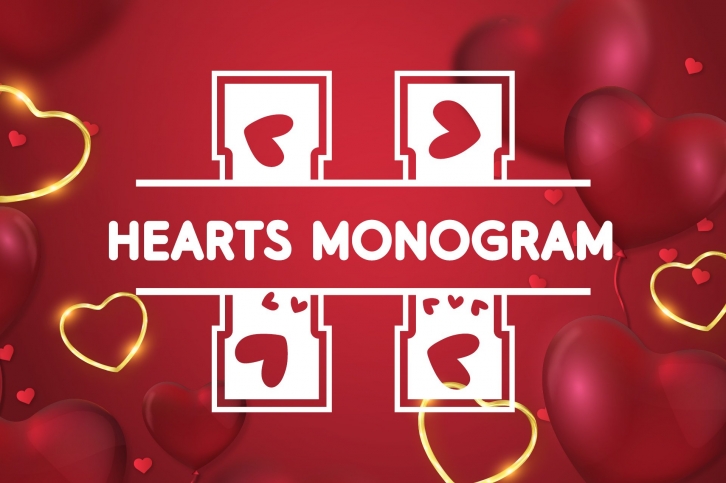
Hearts Split Monogram Font Download
Hearts Split Monogram is a gorgeous font that was realeased on February 4, 2021. The font can be used in many style contexts and design environments. Perfect for invitations, magazines, websites, logos, and more! It was designed by ampersand and the file size is 3.28 MB. Thanks for checking out this font!